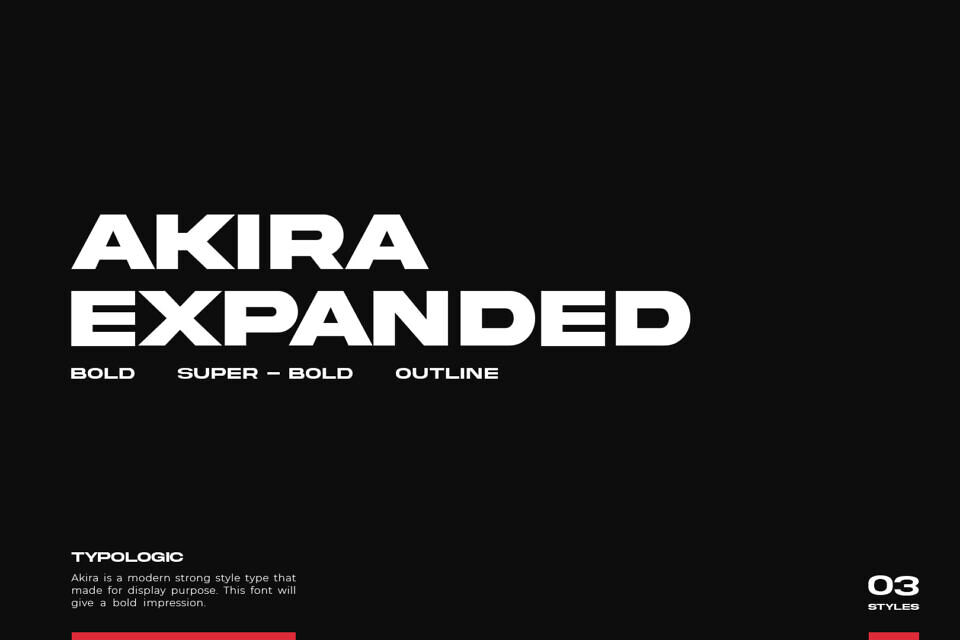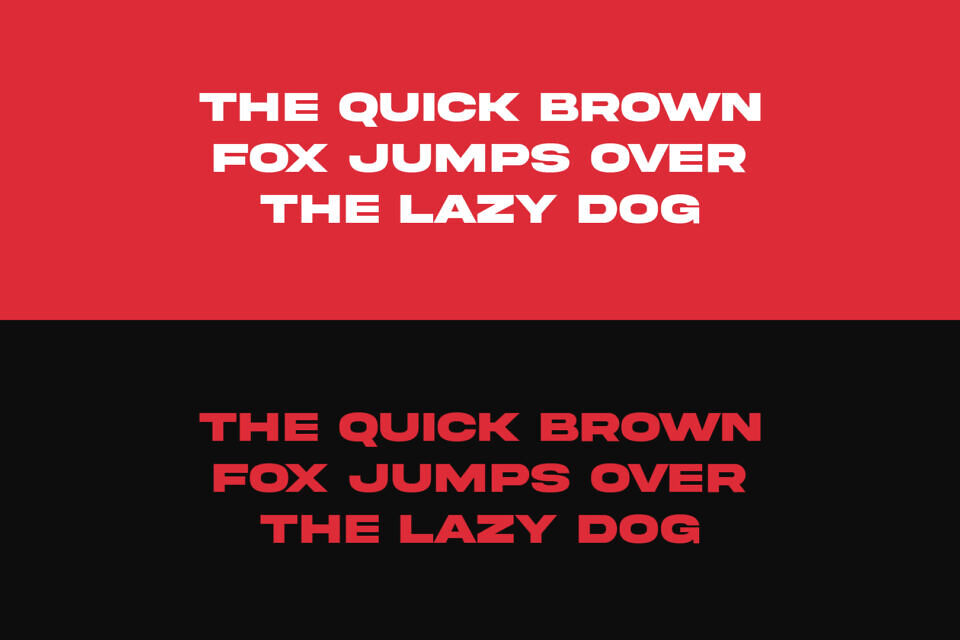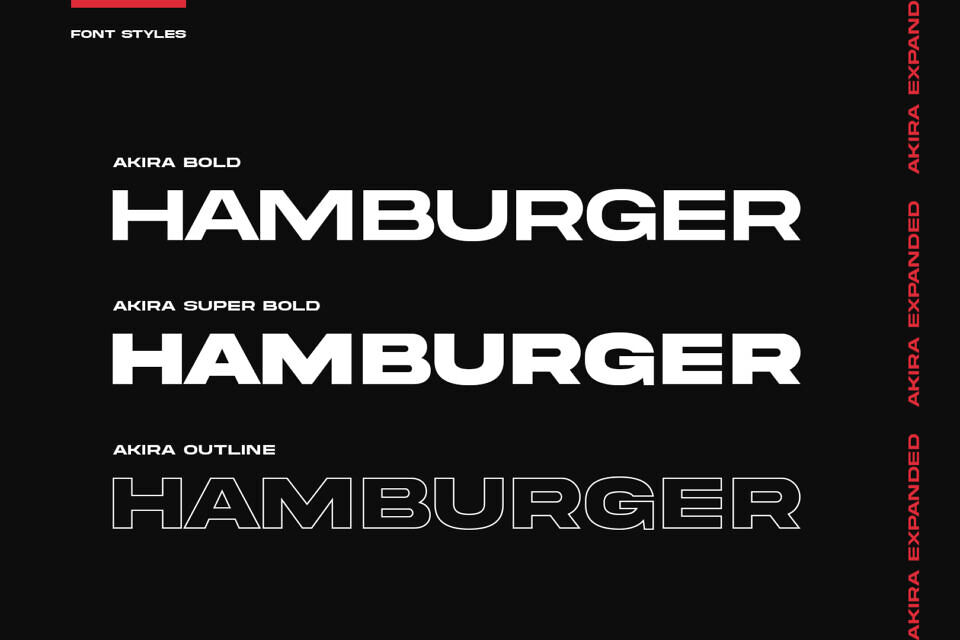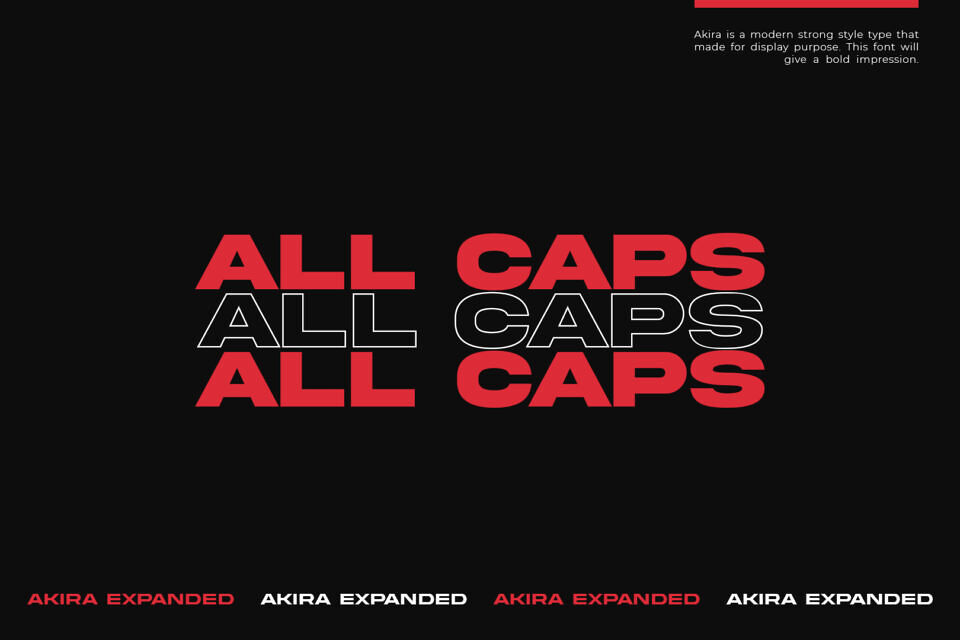
Made for text display purposes, Akira expanded brings a modern and strong impression to your design. With a bold style, make this font suitable as the main text/header text on a website or layout design. Akira expanded also includes alternative glyphs that make it easy for you to make customizations.